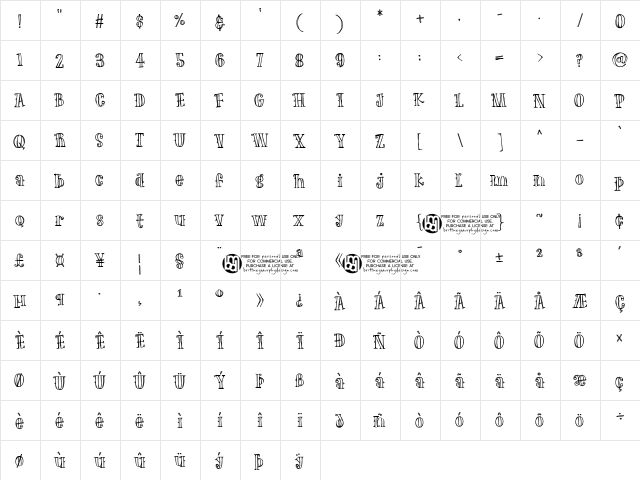
The Old Forest Outline Regular
Design Context for The Old Forest Outline Typeface
The Old Forest Outline brings ornamental detail and strong personality to headlines and identities, where visual impact matters more than quiet functionality.
Font Pairing: Pair with a clean neutral sans-serif for body copy to let The Old Forest Outline's character lead without overwhelming the composition.
Pro Tip: Treat The Old Forest Outline as the centrepiece of your typographic hierarchy. One strong heading set in a decorative face can carry an entire layout.